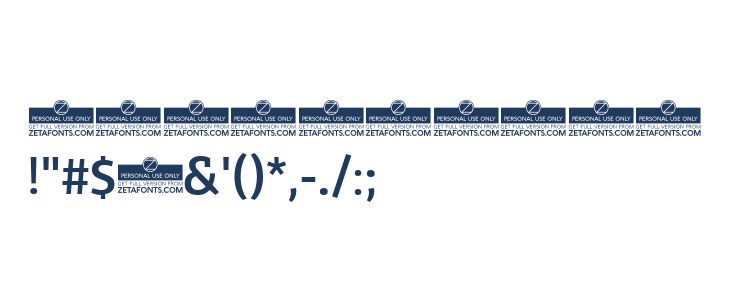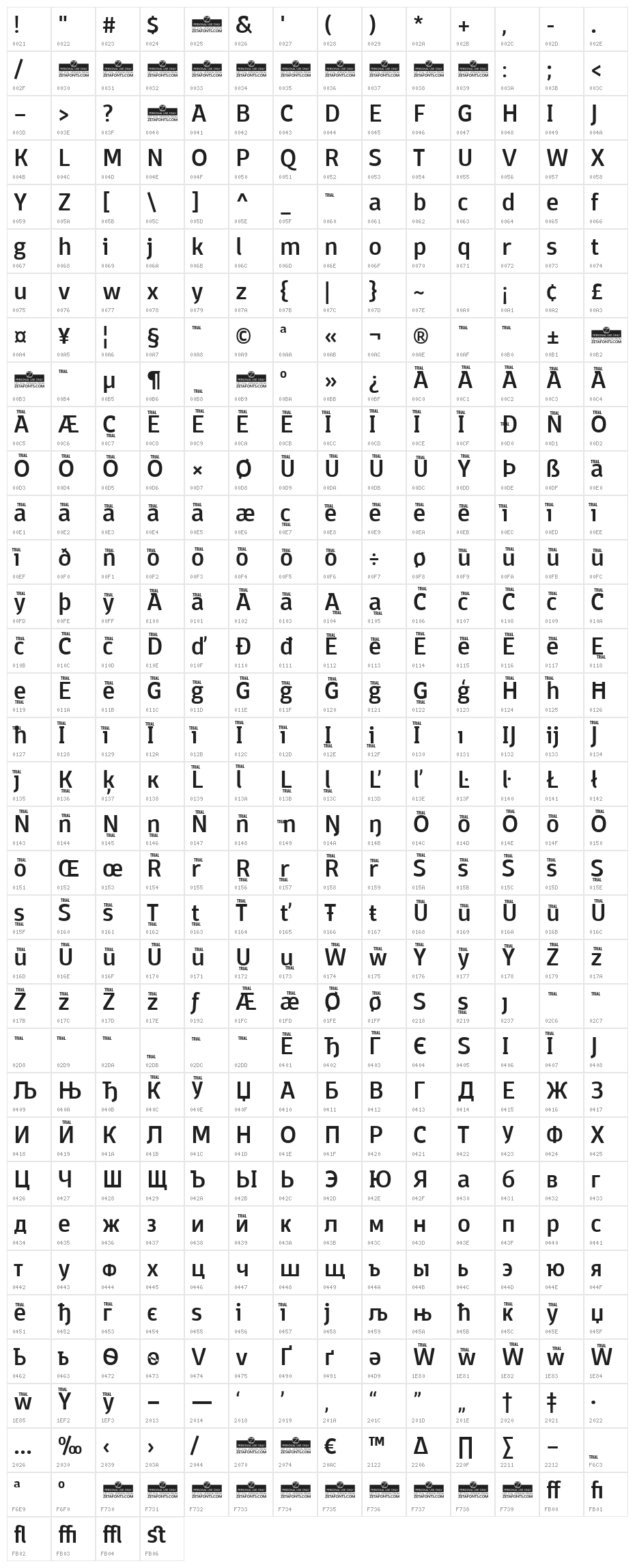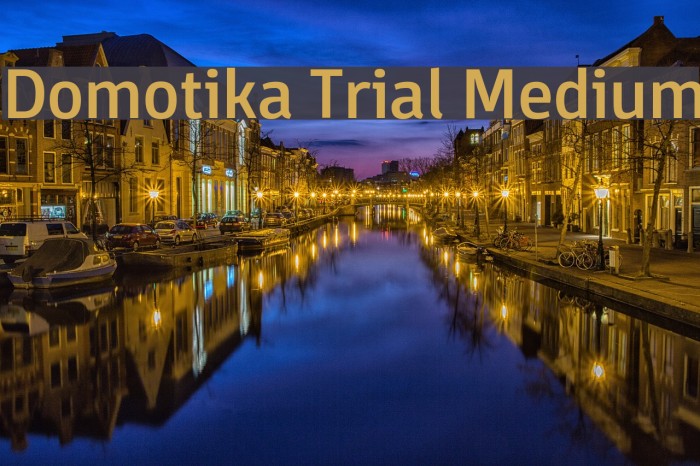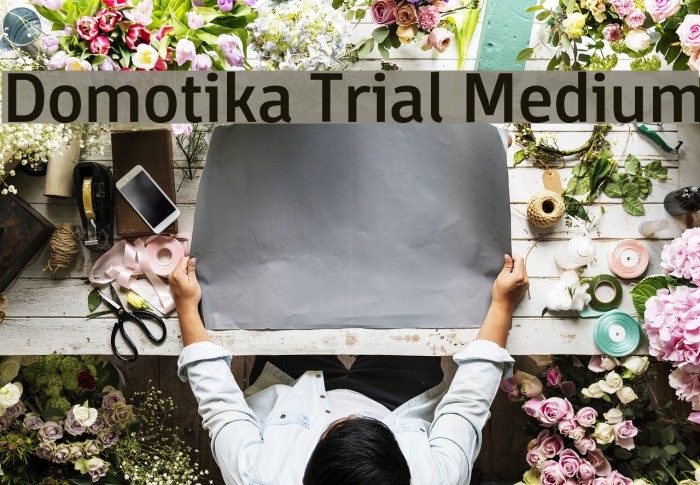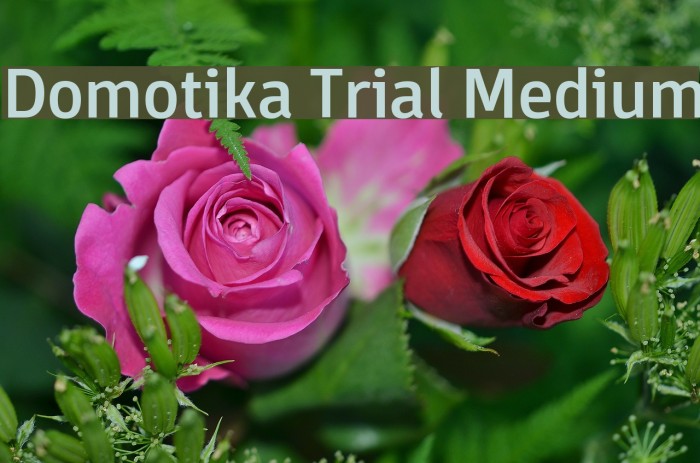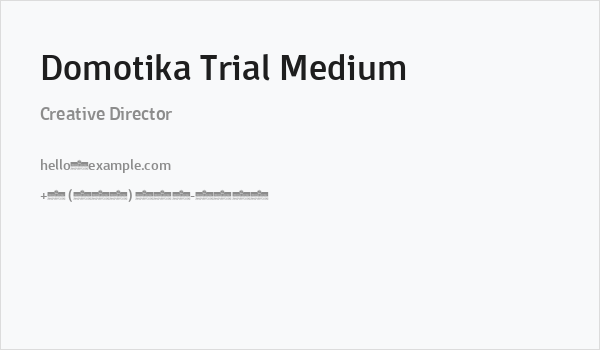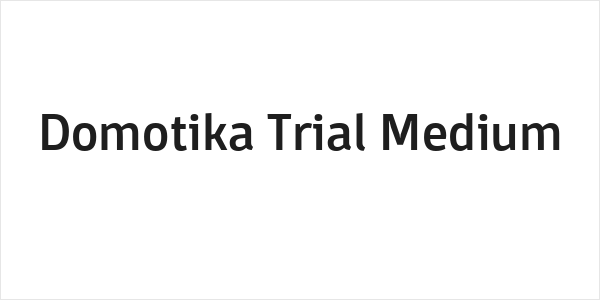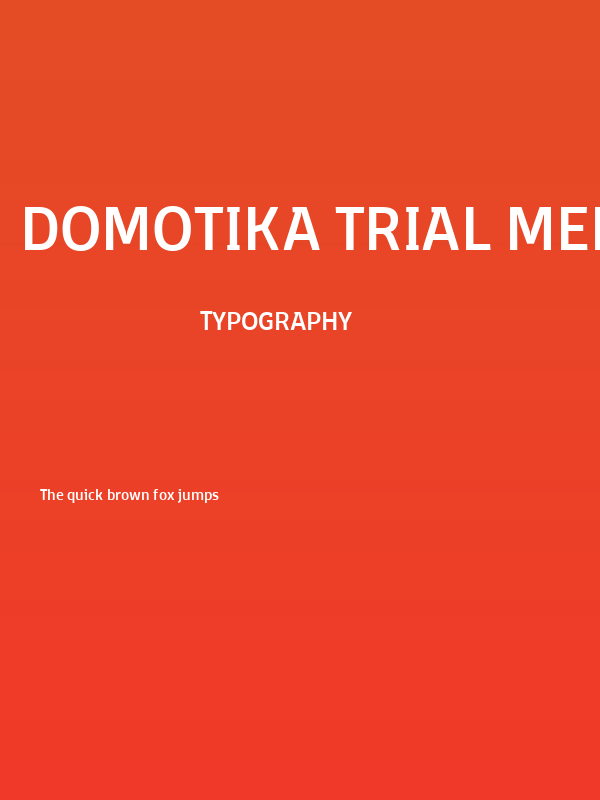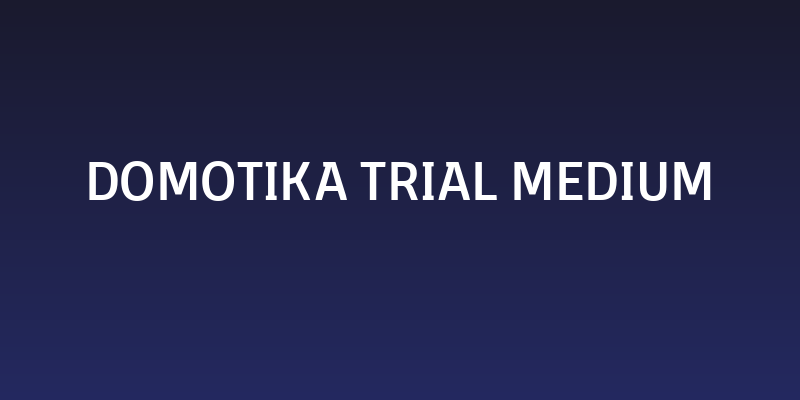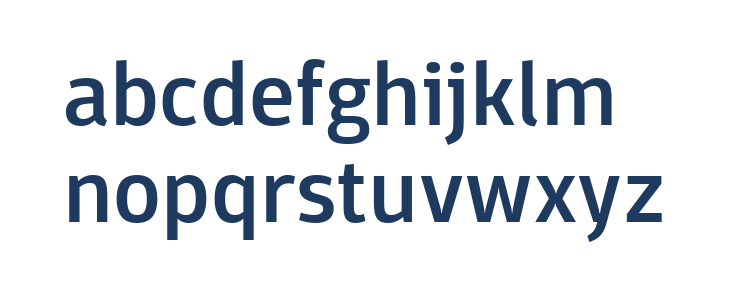
Domotika Trial Medium Font
Domotika Trial Medium Description
This font exhibits a clean and modern sans-serif style, characterized by its geometric shapes and uniform stroke widths. The uppercase letters are bold and assertive, while the lowercase letters maintain a consistent and harmonious appearance. The numerals are clear and easily readable, making them suitable for various applications. Special characters are well-defined, adding to the font's versatility. The overall design is sleek and professional, ideal for contemporary design projects.
| Proposed Projects | Ideal for branding, web design, advertising, and editorial projects where a modern and professional look is desired. |